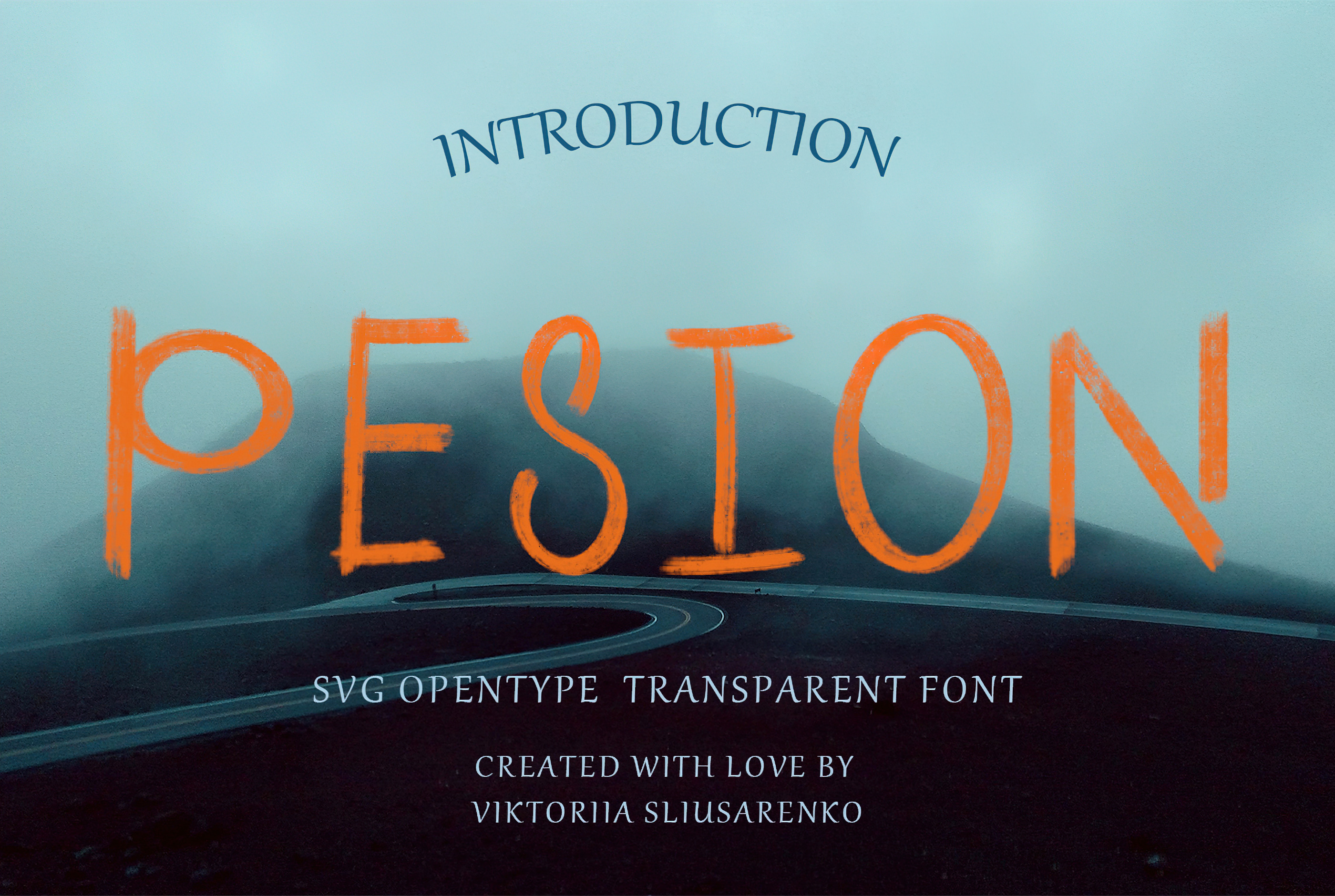
PESION svg opentype font
Introducing Pesion: A Vintage Handwritten Font for Captivating Designs
Pesion is a one-of-a-kind handwritten font with a vintage feel, perfect for infusing your designs with a hint of wistfulness. This OpenType SVG font showcases a distinct appearance, featuring a transparent body reminiscent of faded paint on an aged structure. Its handwritten style contributes to a personalized and genuine ambiance, adding an authentic touch to your projects.
By incorporating Pesion's vintage-inspired aesthetics, your designs acquire a unique allure and charm, making it a valuable addition to your font collection. Moreover, the font includes 4 ligatures, enabling you to craft even more exceptional and captivating designs. When it comes to Photoshop projects, Pesion truly shines as it maximizes the potential of its OpenType SVG format, allowing you to achieve breathtakingly realistic effects.
Whether you're crafting a retro-themed poster or creating social media graphics that evoke nostalgia, Pesion guarantees to infuse your designs with charm, individuality, and a touch of vintage elegance. Let Pesion transport your audience to a bygone era and create designs that captivate with their unique allure. Discover the timeless beauty of Pesion and unlock your creativity.